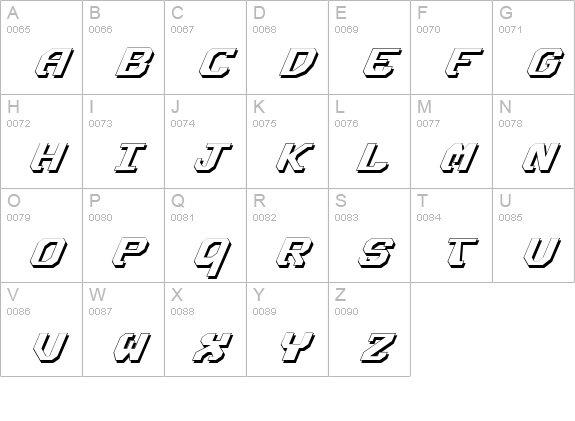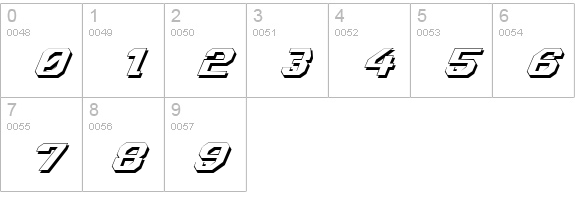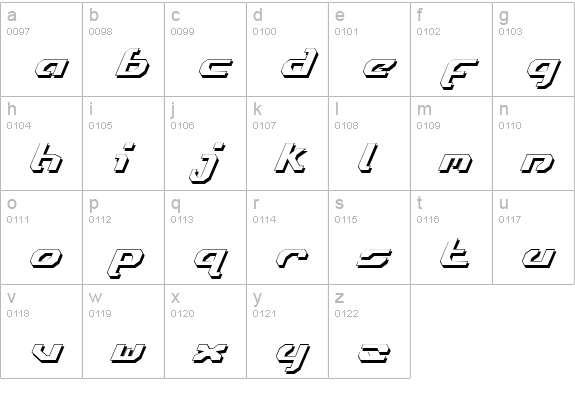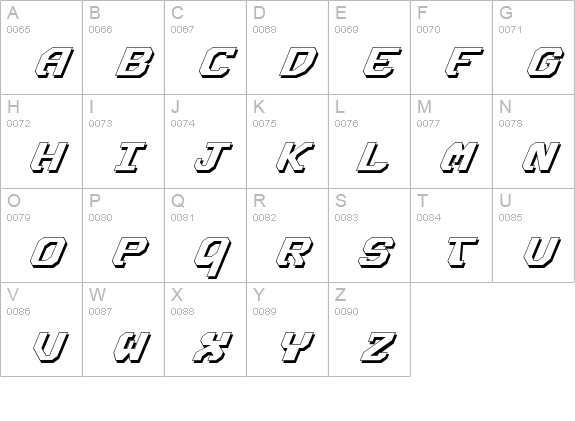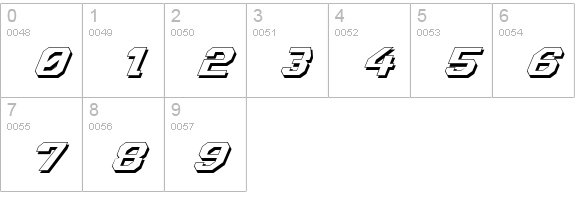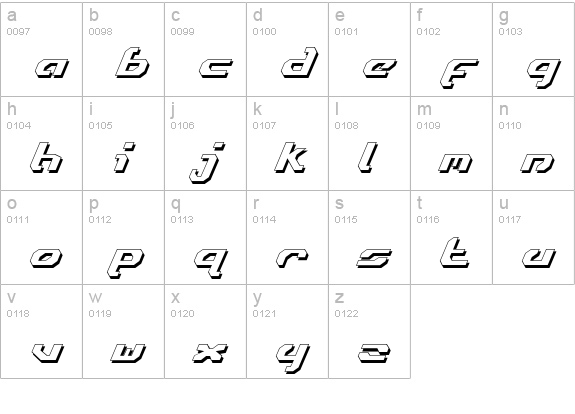
Ensign Flandry Shadow Italic is a distinctive, italic variant in the Ensign typeface family \xE2\x80\x94 well suited to design and typography projects.
Ensign Flandry Shadow Italic font is a striking and elegant typeface that exudes a sense of sophistication and modernity. Its unique design features intricate shadow detailing that adds depth and dimension to any text. The italicized style of this font lends a touch of flair and creativity, making it perfect for a variety of design projects. What sets Ensign Flandry Shadow Italic font apart is that it is available for free download at FontsMarket.com. This means that you can easily access and use this beautiful font in your personal or commercial projects without any cost. Whether you're creating a logo, designing a website, or working on a print project, Ensign Flandry Shadow Italic font is sure to make a bold statement and elevate the overall look of your design. Download it today and add a touch of elegance to your creations.